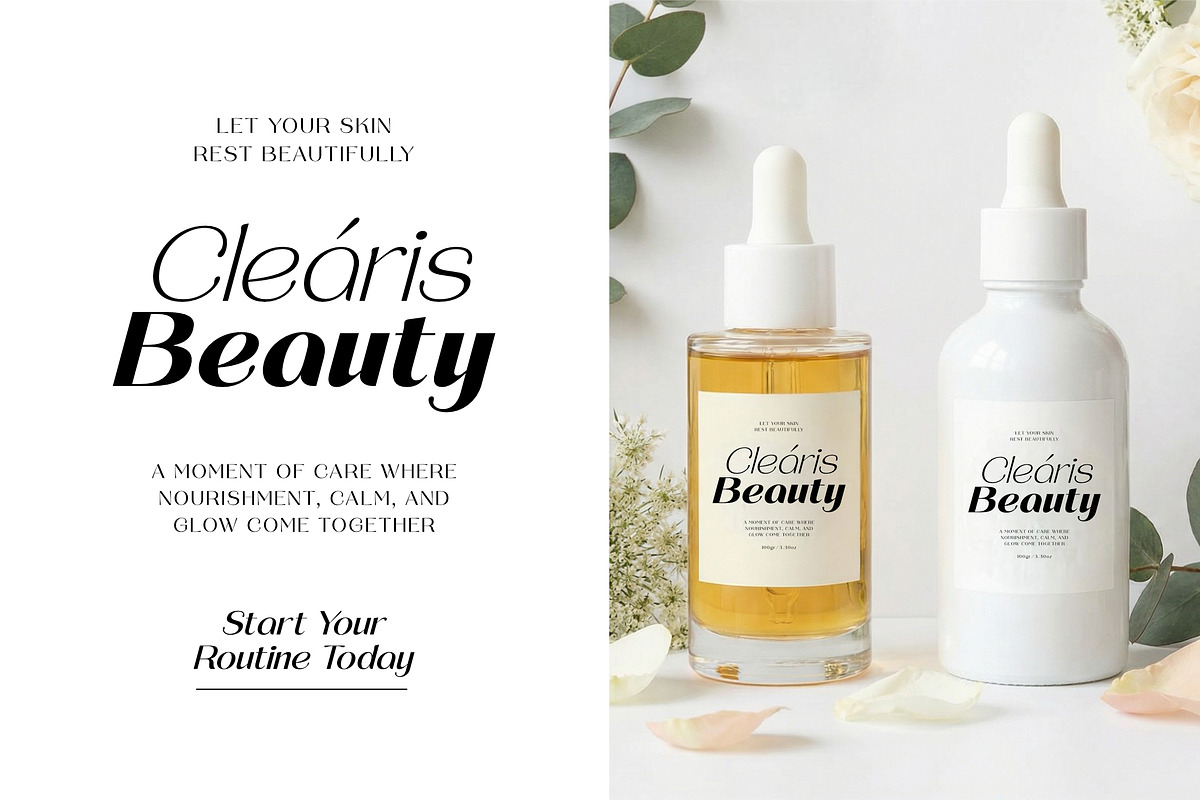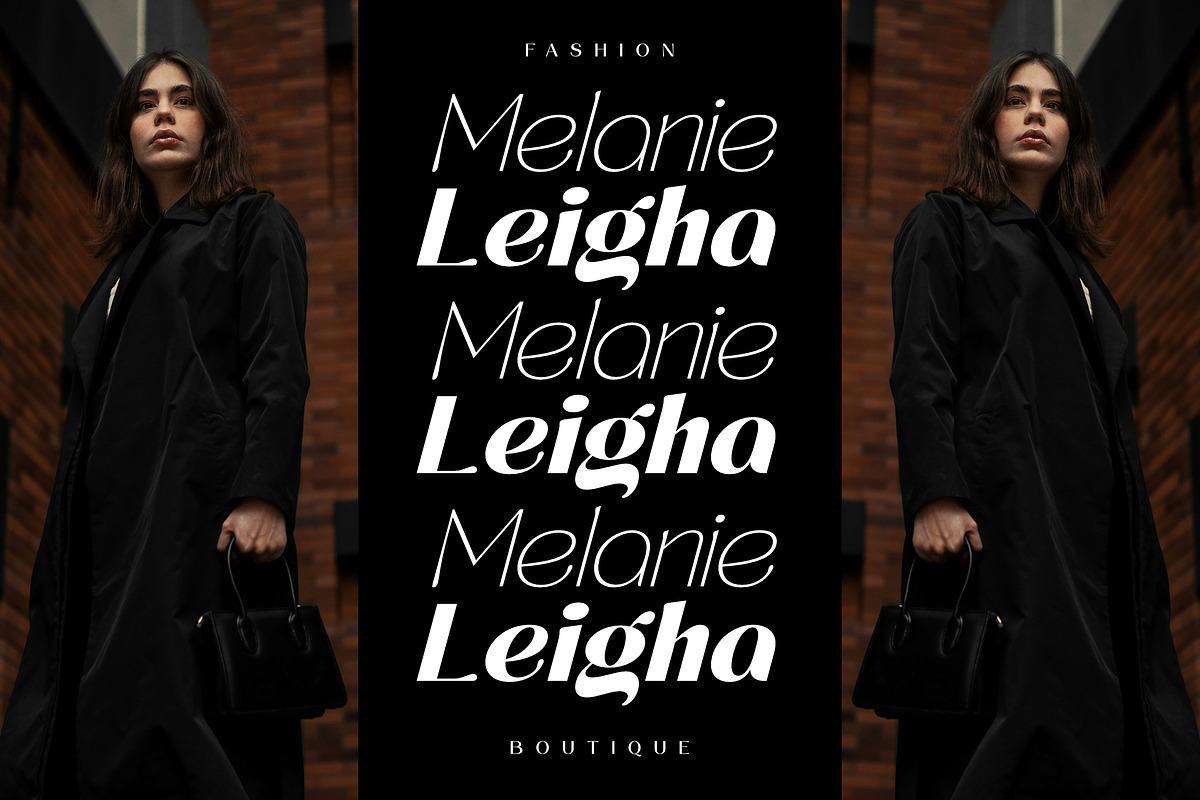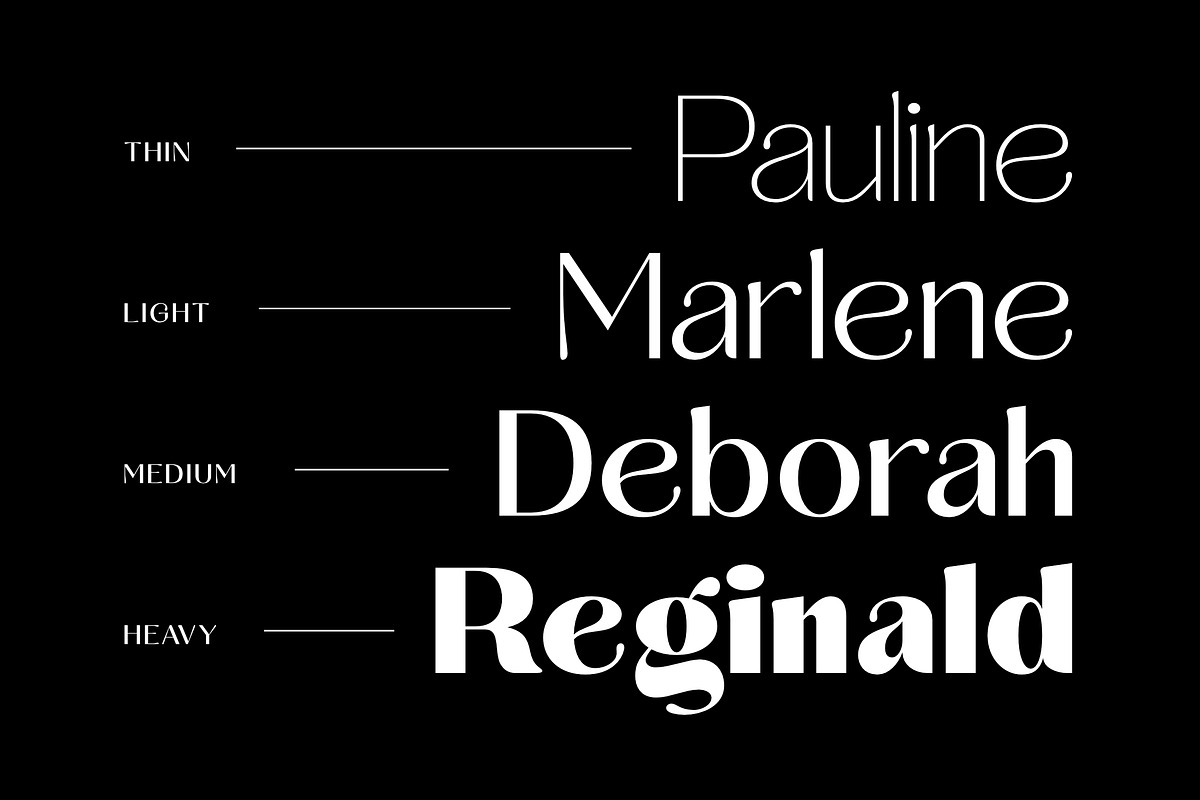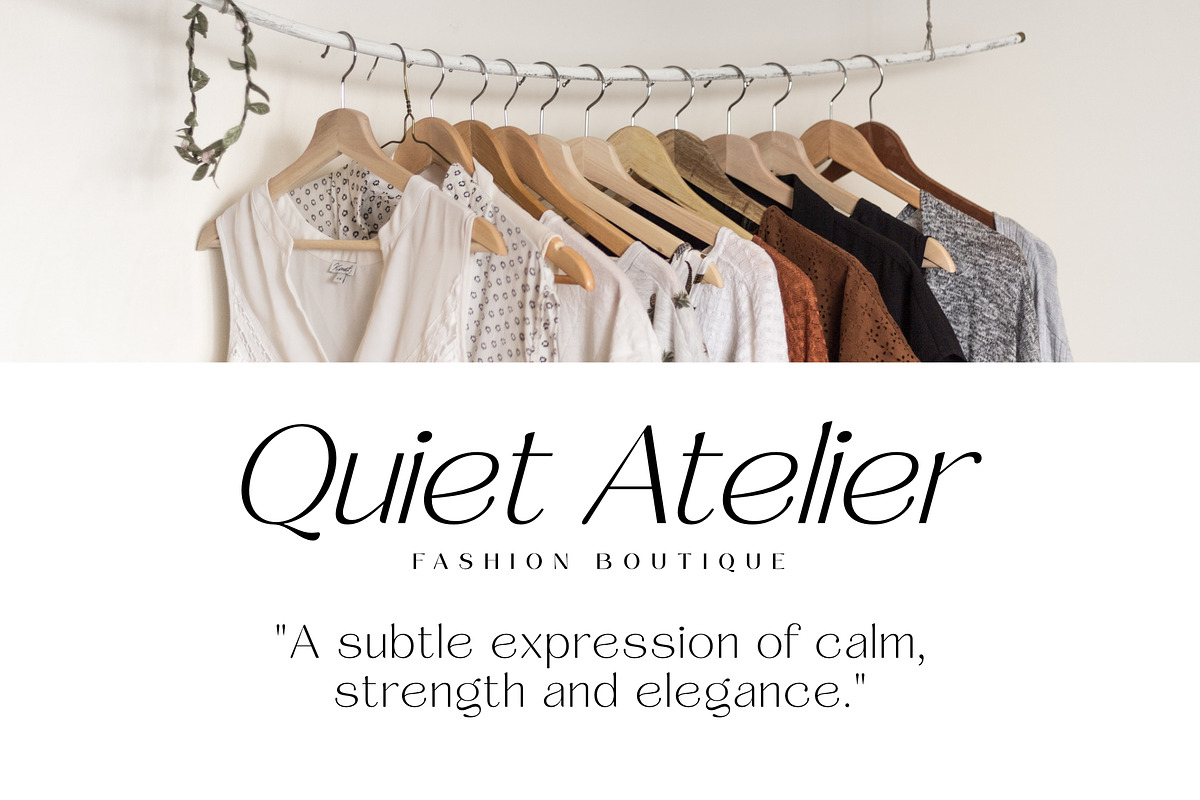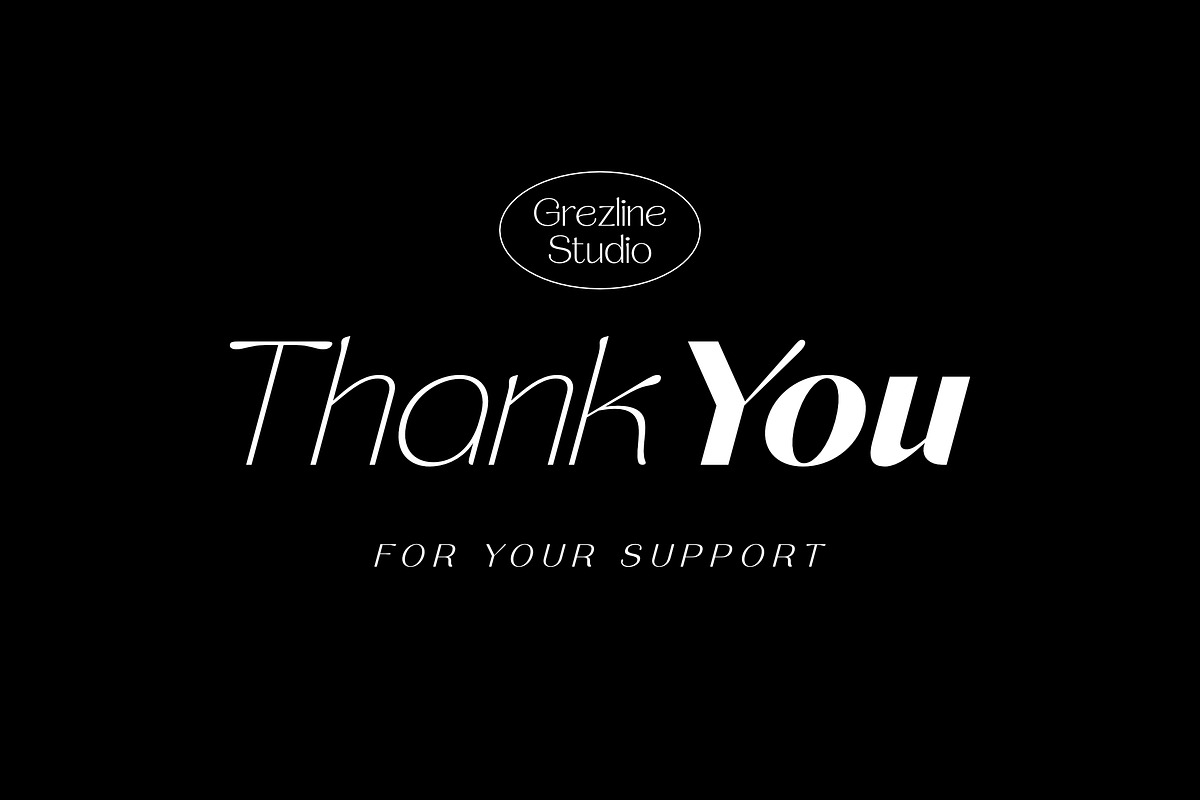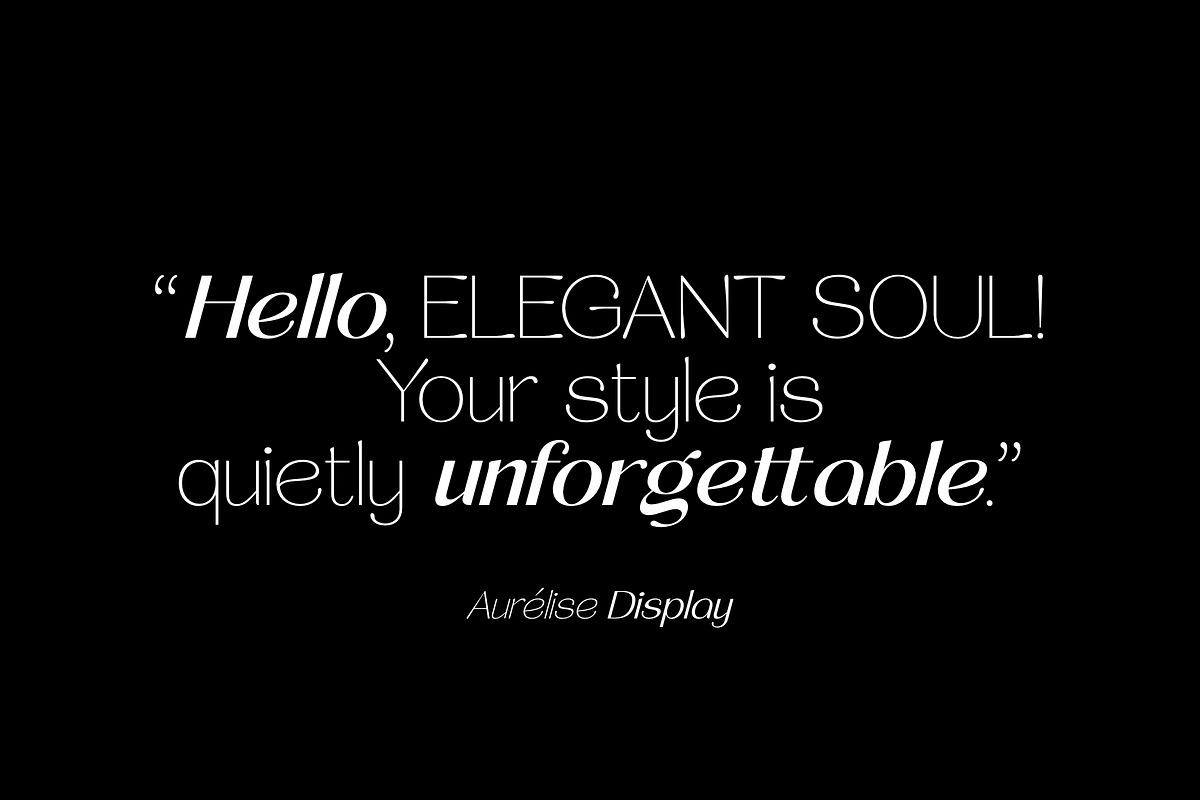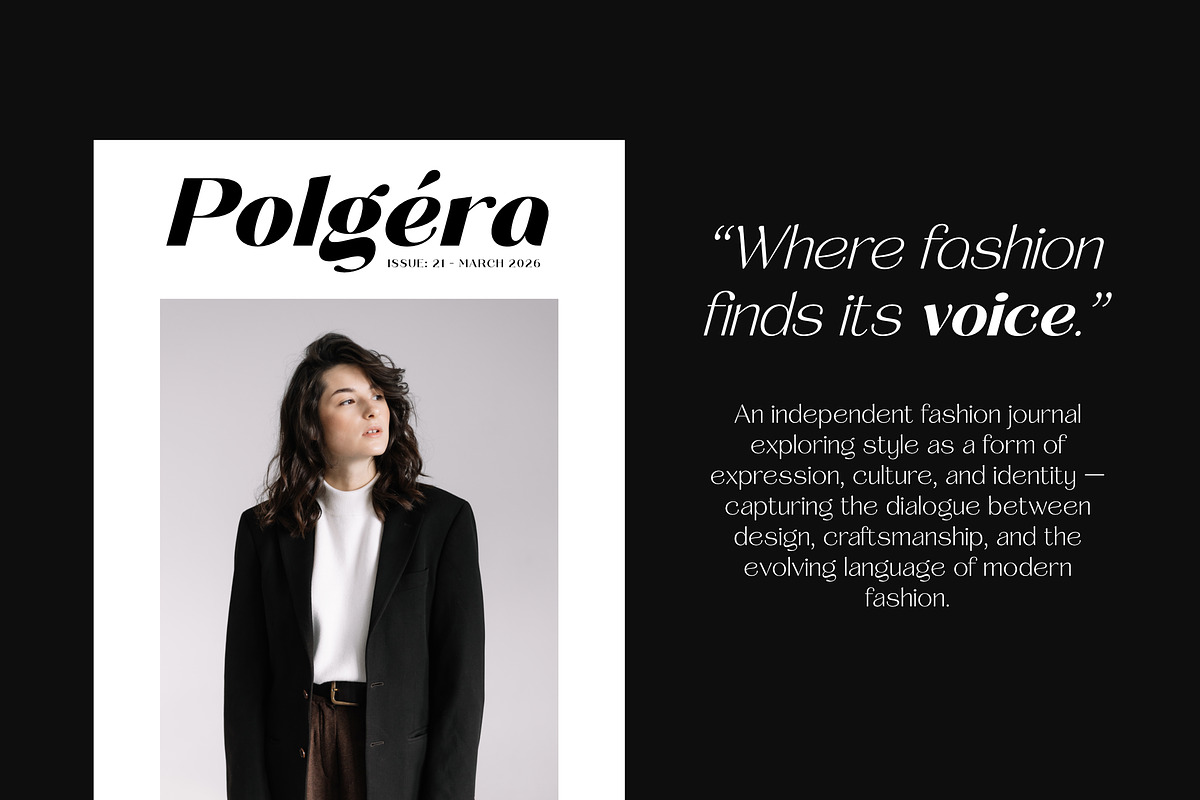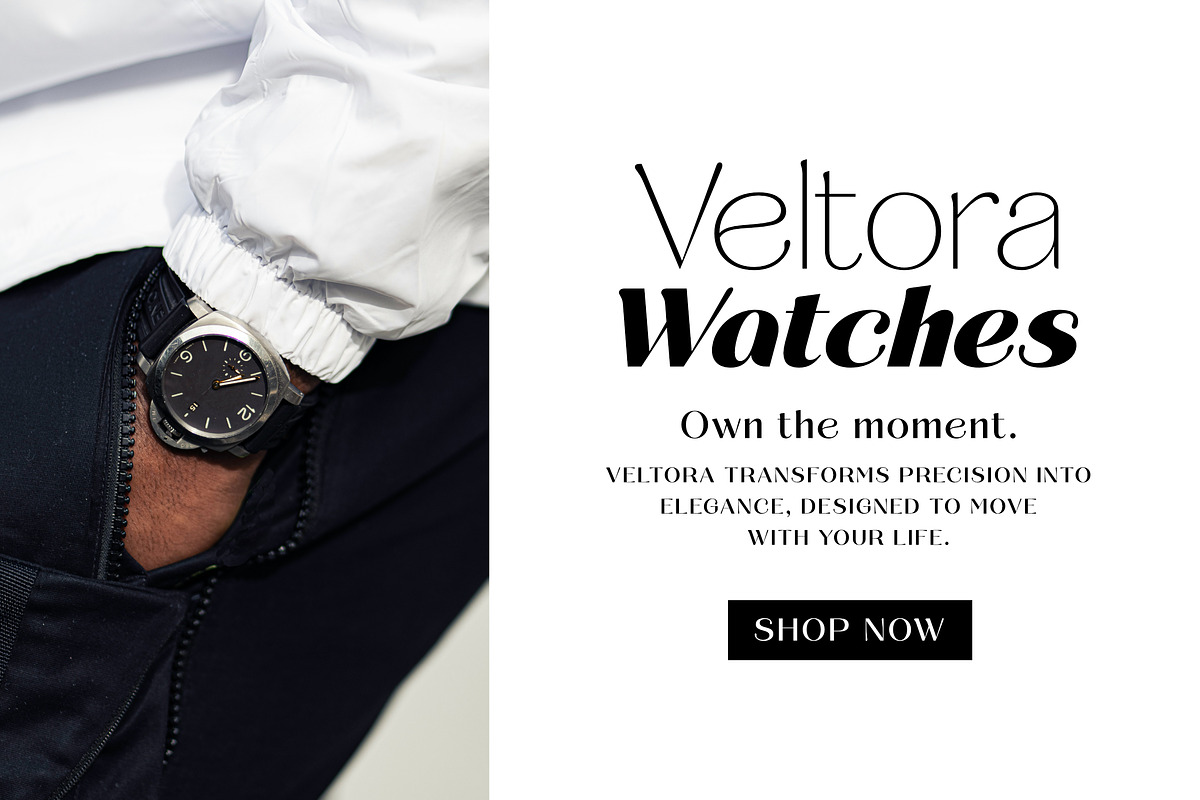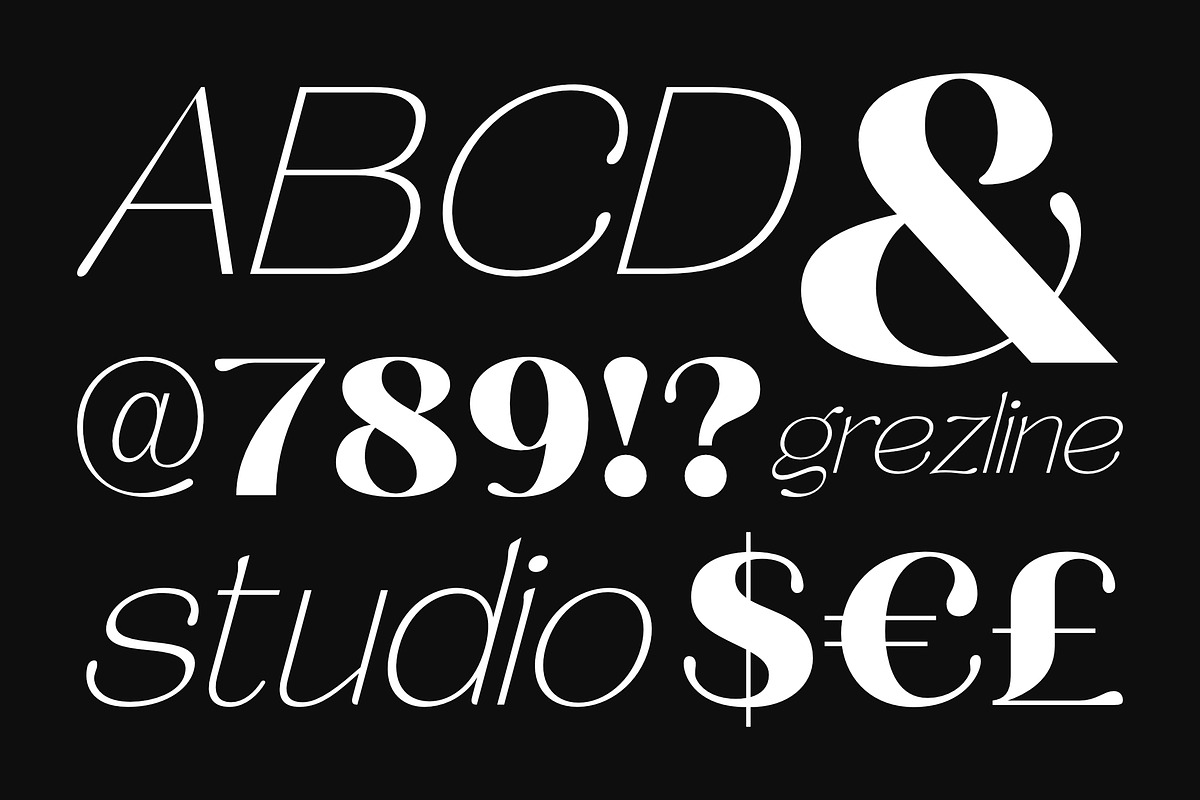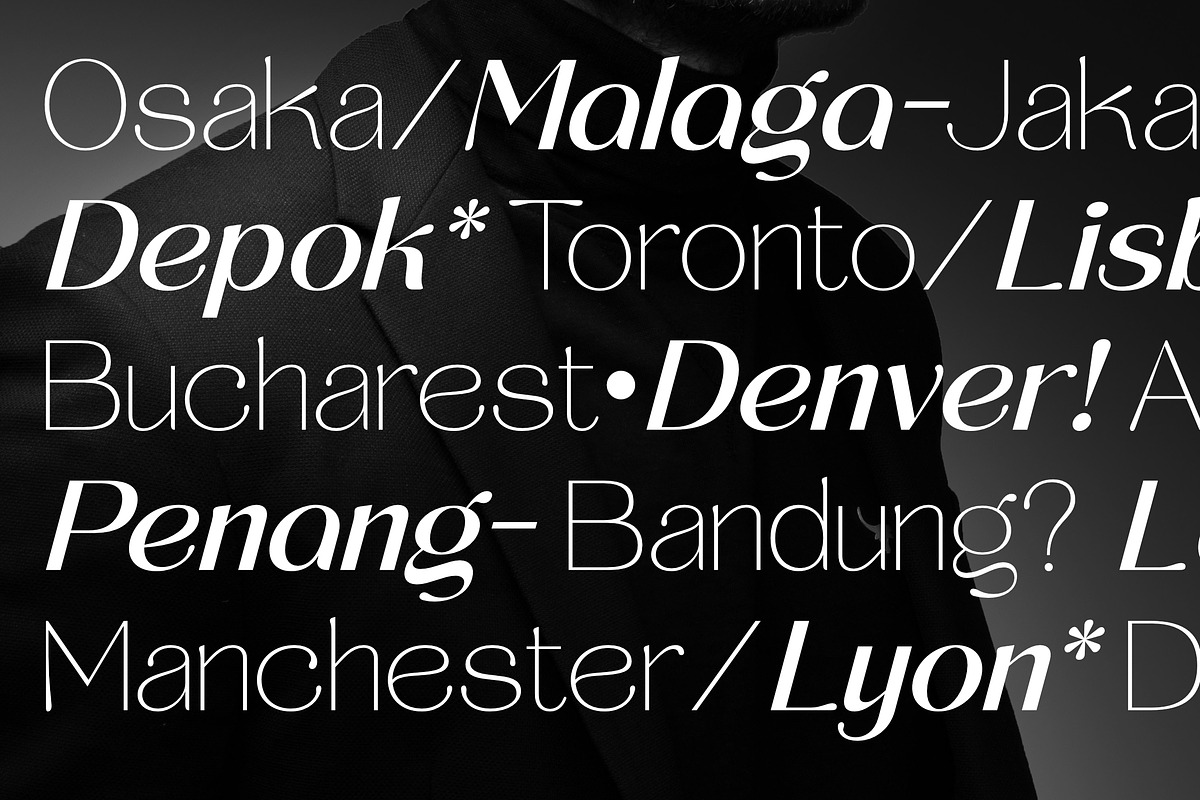
Aurelise – Display Font Family
Introducing Aurélise, a refined sans serif display font family designed to bring elegance and modern sophistication to your typography. Crafted with curves and distinctive letterforms, this typeface delivers a stylish presence that instantly elevates any visual composition. Auréliseblends the clarity of a sans serif structure with expressive display details, creating a look that feels both contemporary and timeless. It works beautifully for branding, editorial layouts, fashion campaigns, logos, packaging, and other creative projects that require a polished and memorable typographic voice.